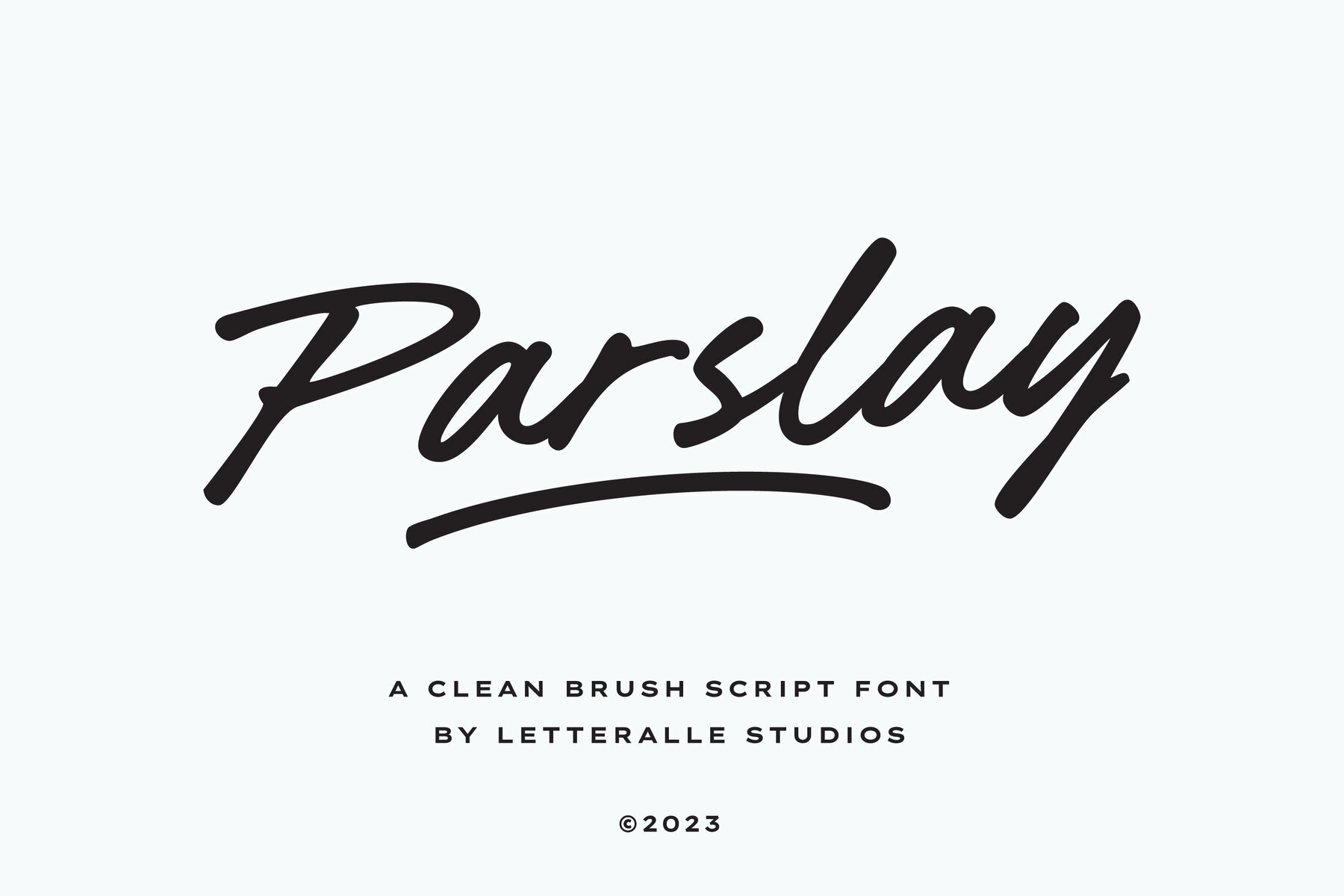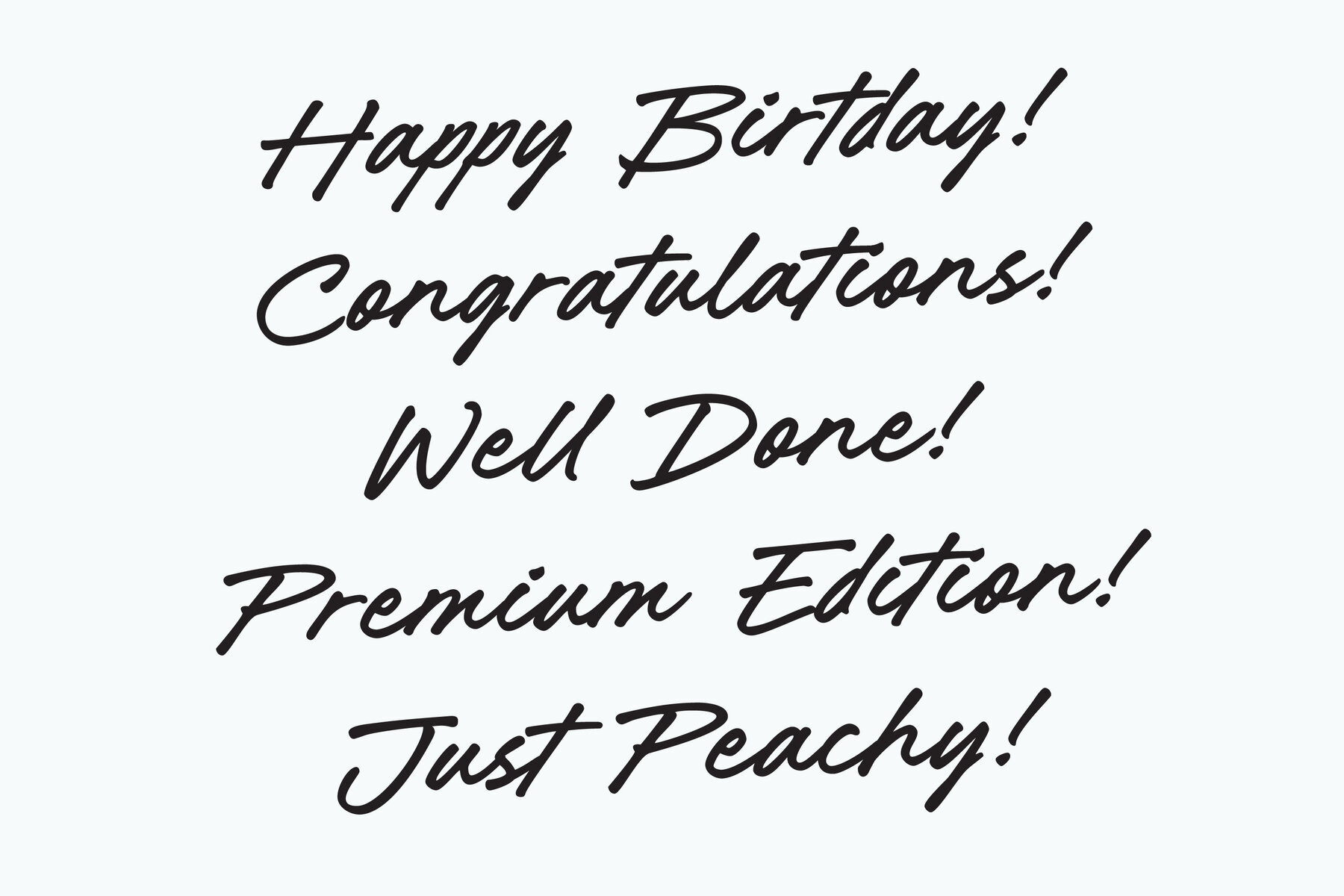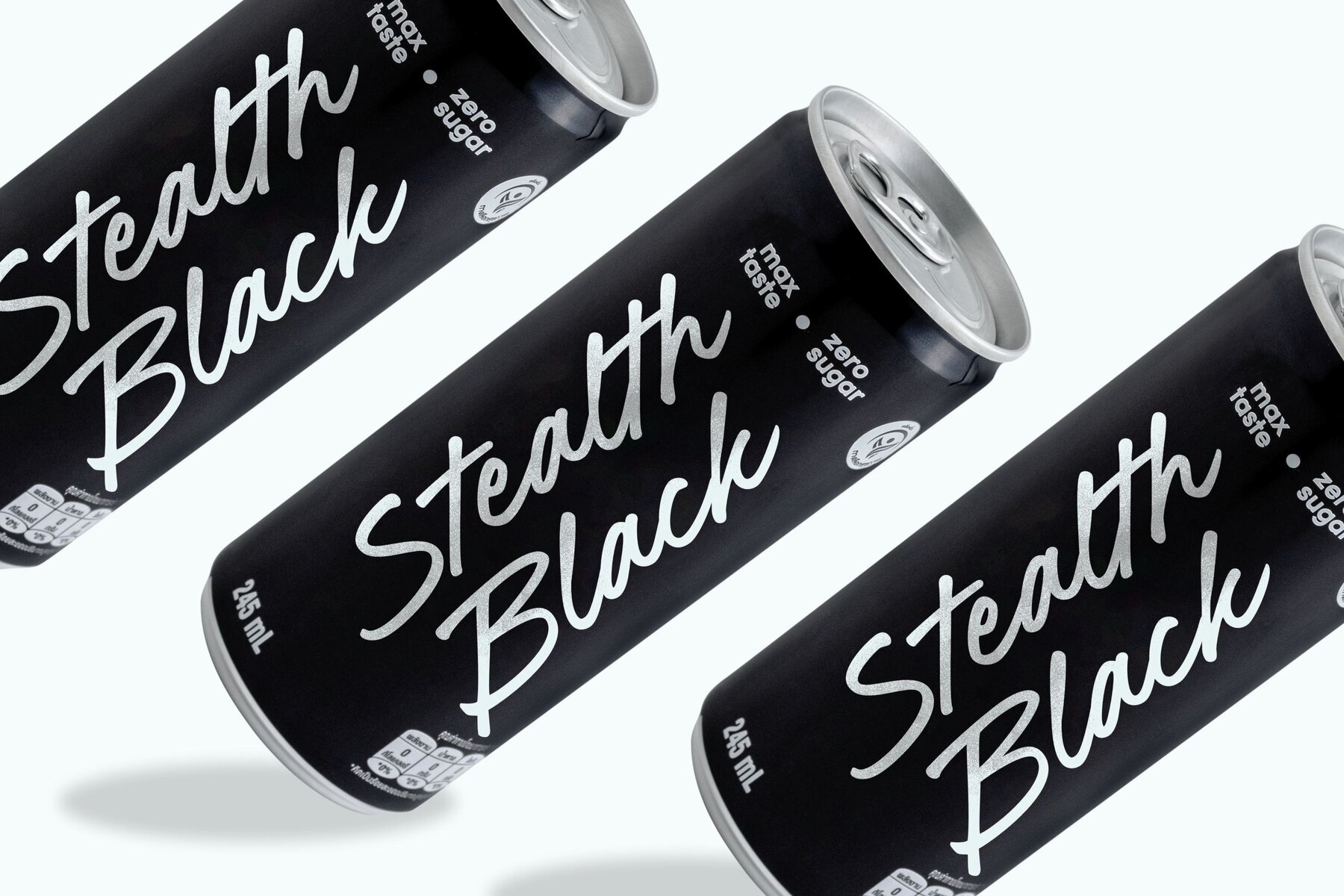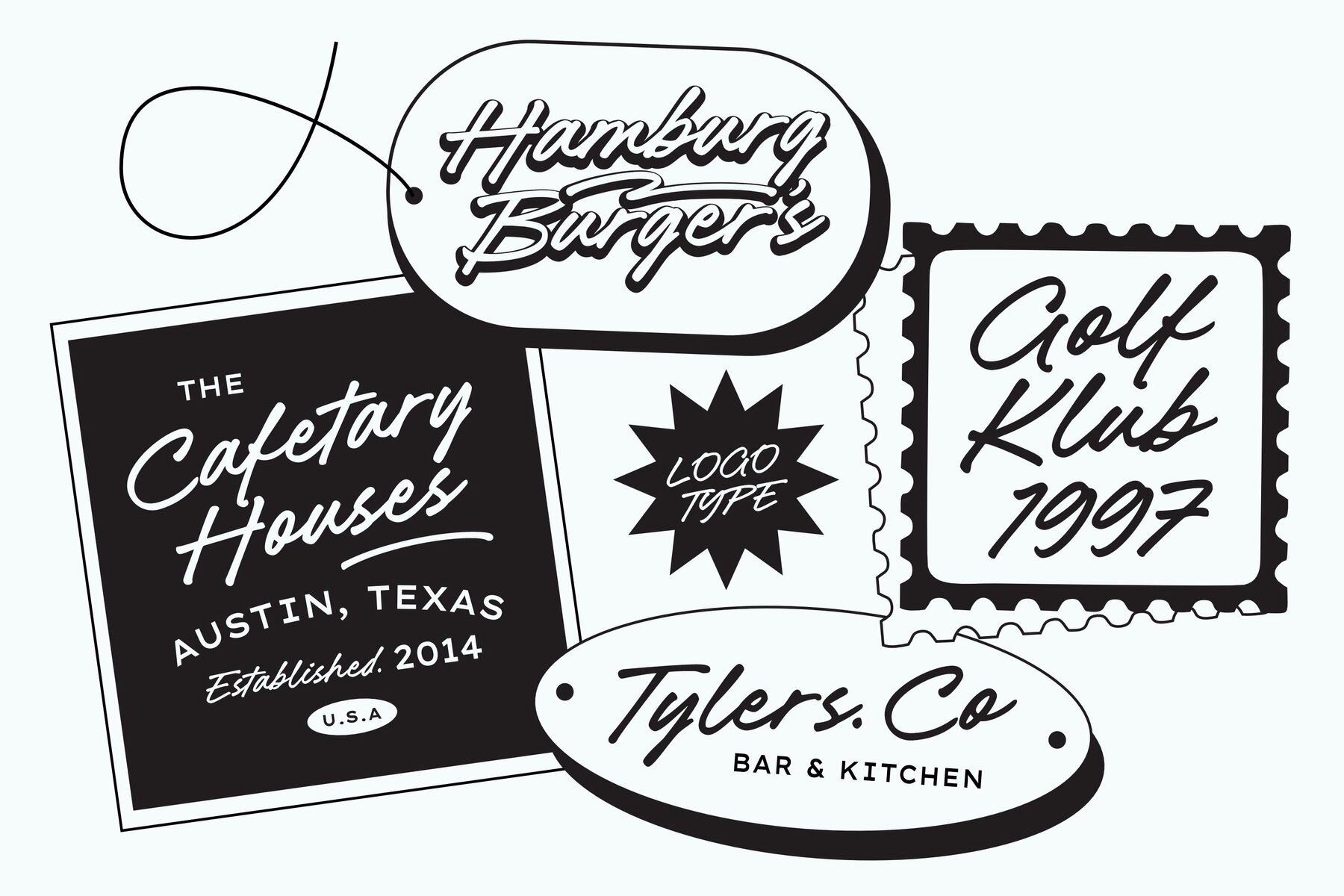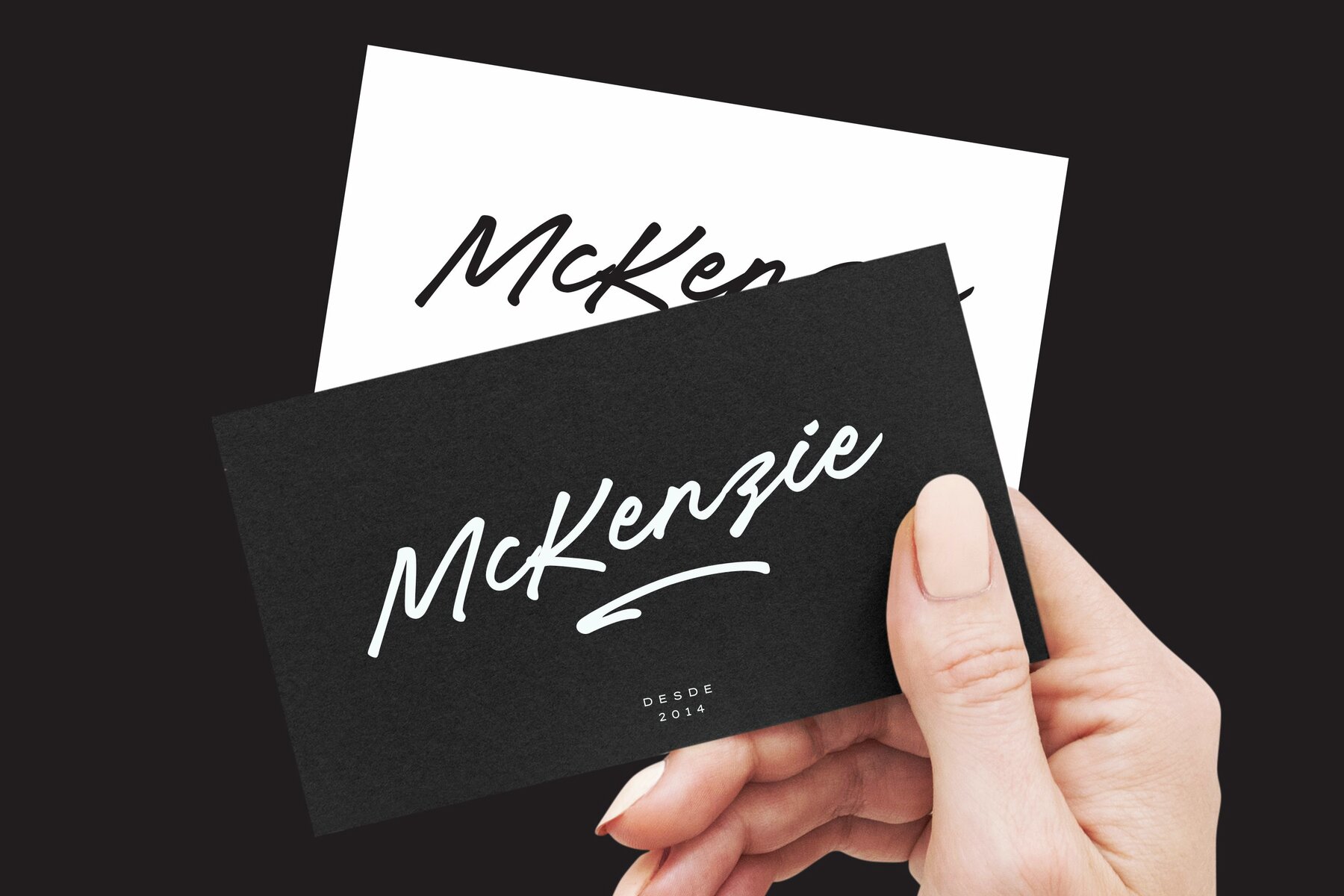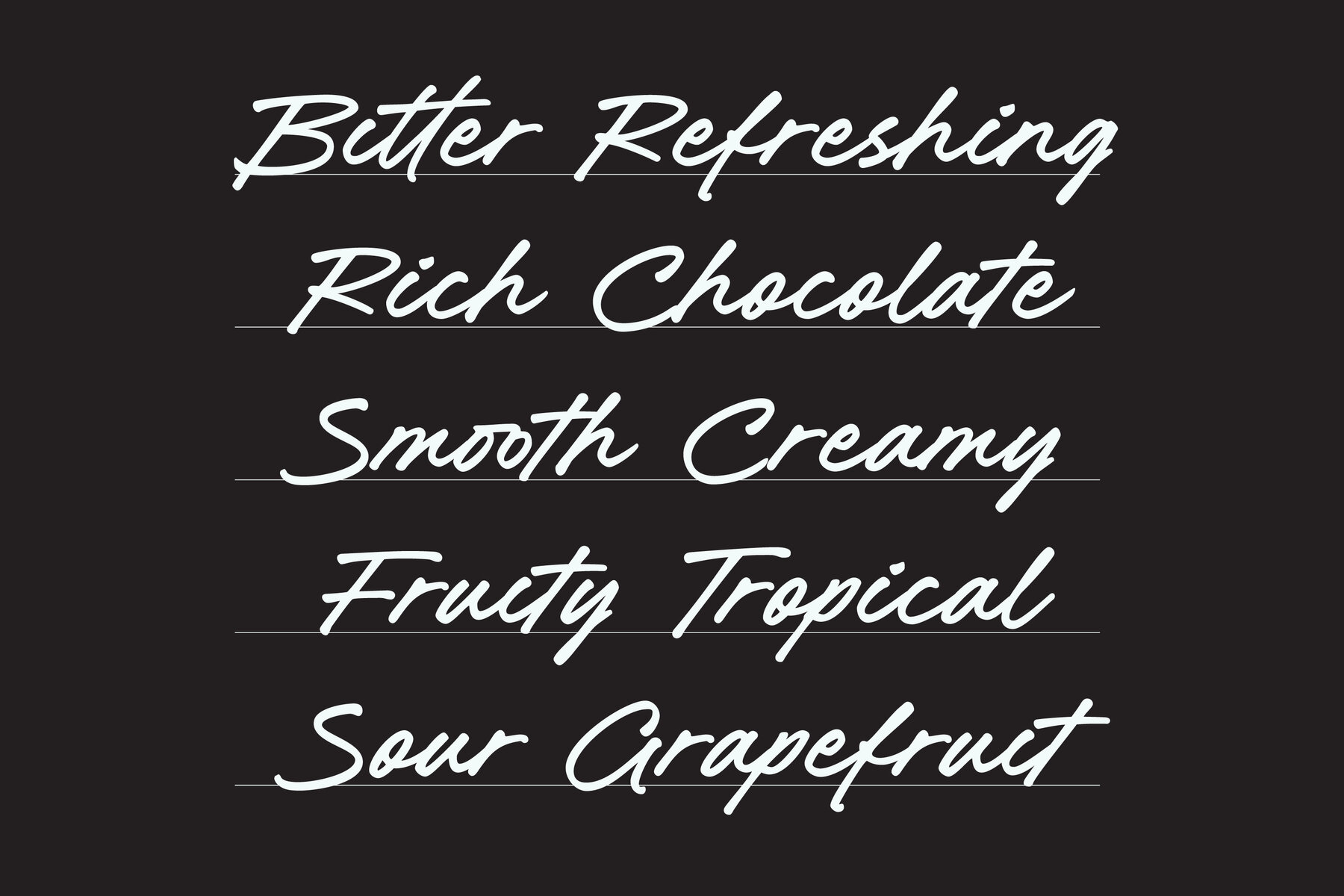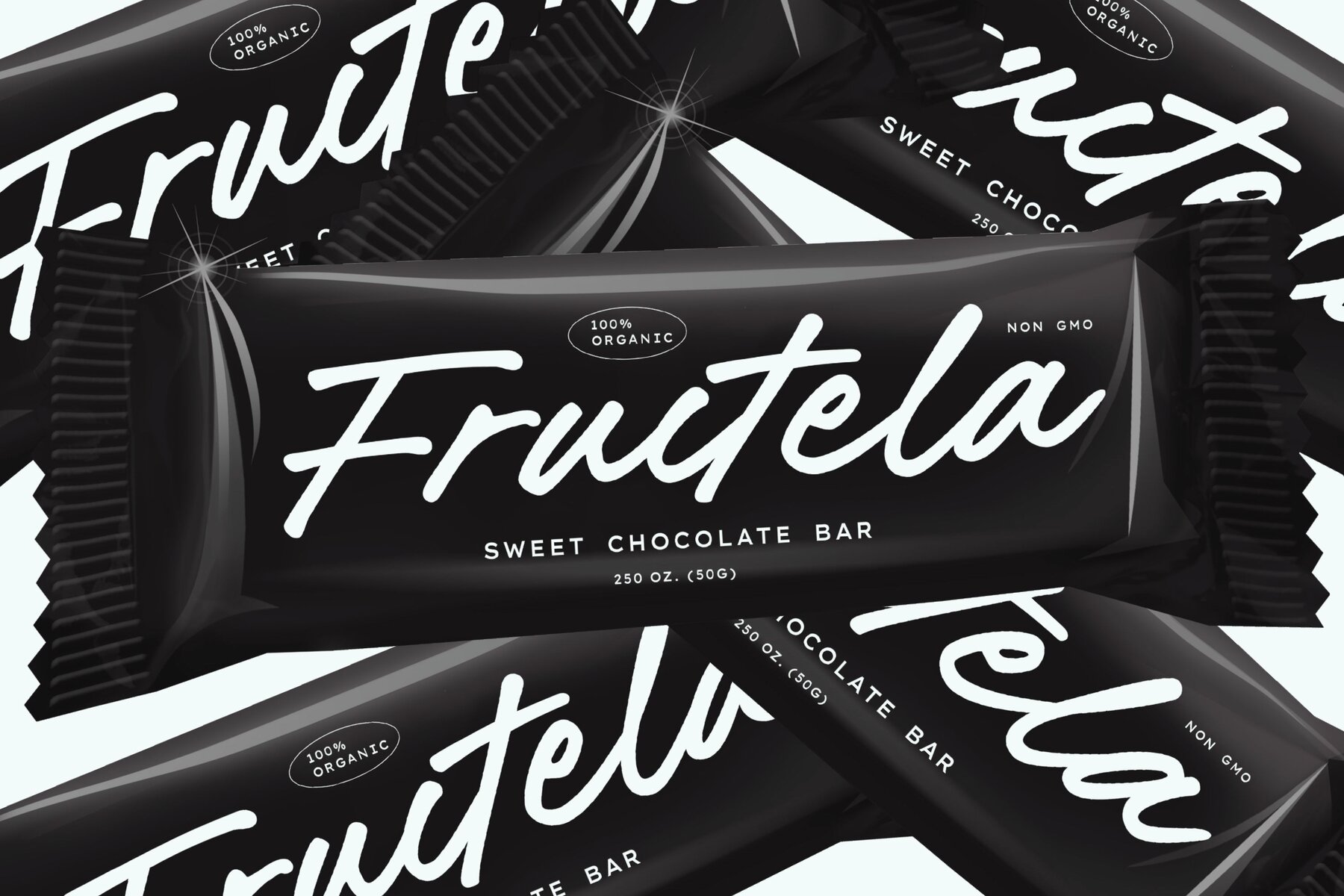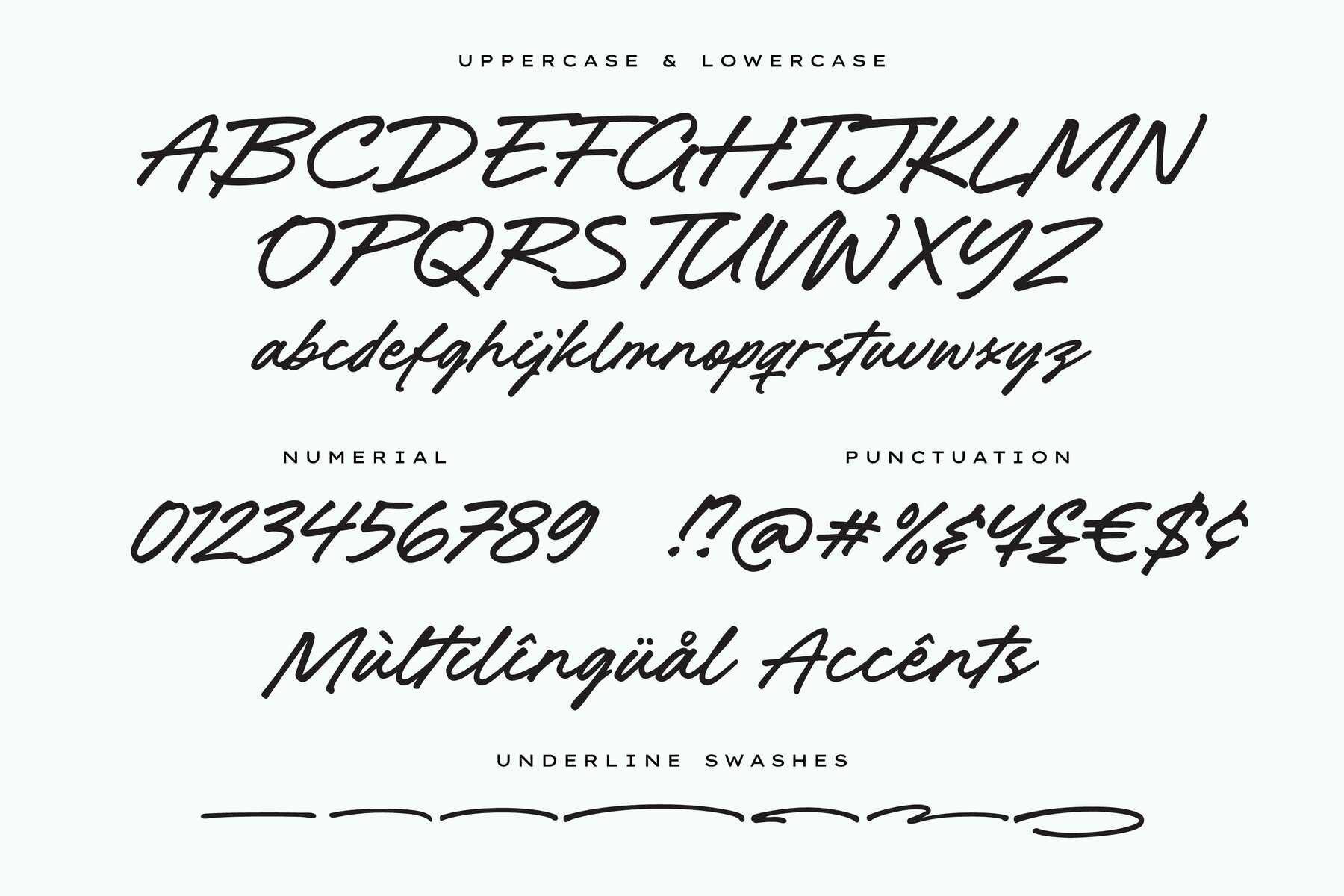
Parslay Font
Parslay Regular
Introducing, Parslay. - a captivating font meticulously crafted with a brush pen, bringing forth the essence of clean and natural strokes. Embrace the organic flow of each character, evoking a sense of authenticity and artistic flair. With its charming underline swashes, effortlessly accessed by simply typing "_1" to "_7", Parslay, adds a touch of elegance and sophistication to your designs. Whether you're crafting invitations, quotes, or logos, this font promises to infuse your creations with a seamless blend of grace and originality. Unleash your creativity with Parslay and watch your projects come to life with an enchanting finesse! What's you get :
- Underline Swashes (just type _1 to _7)
- Numeral & Punctuation.
- Ligature.
- Multilingual Support.